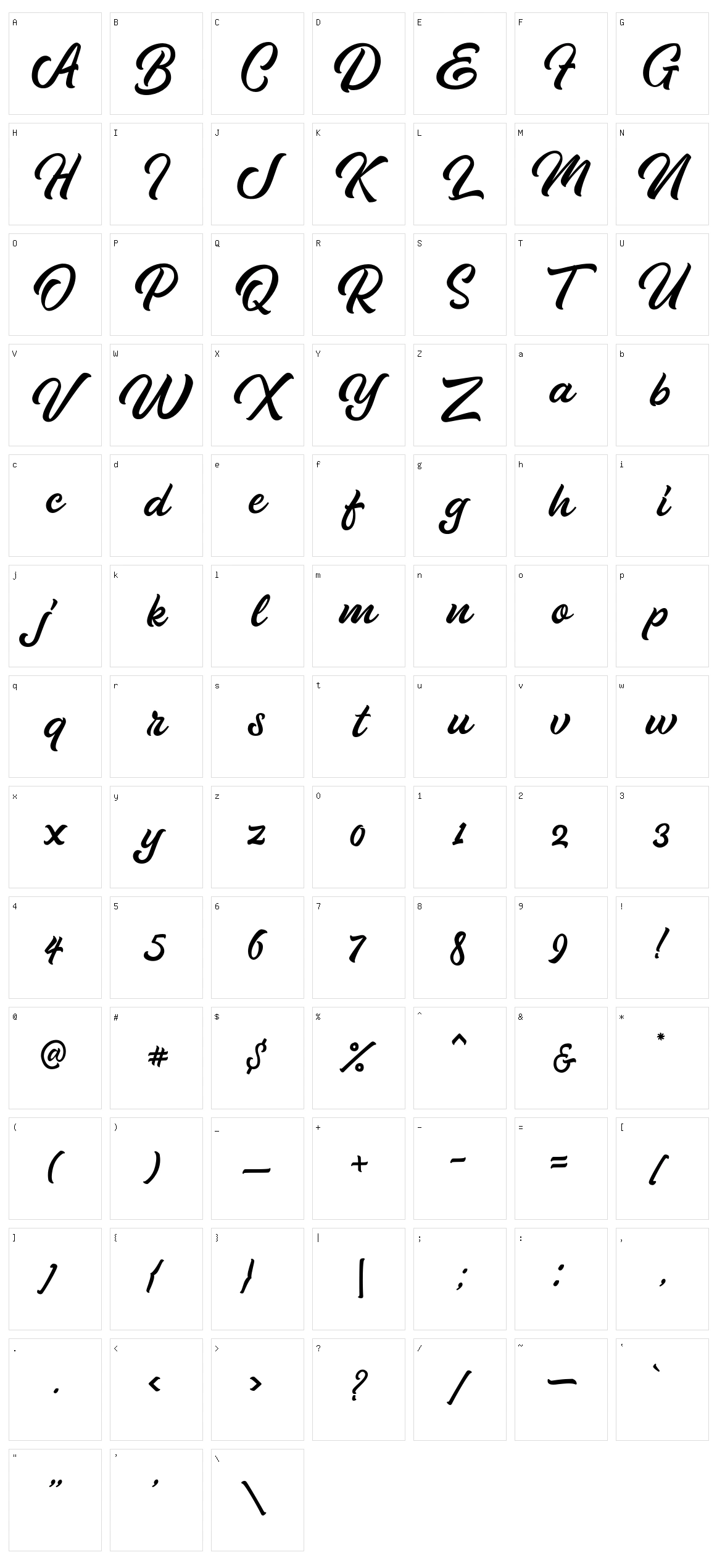
The free font Pipetton Script is carefully designed by Letterhend Studio, showcasing a thoughtful balance of creativity and usability and falls under the Script font style. When you download the ZIP file, it contains only 1490.5 KB of font files, making it lightweight and quick to download. Please review the license details below to understand permitted usage and distribution rights. If license information is not available, we recommend using this font for personal projects only or contacting the author directly for commercial usage permissions.